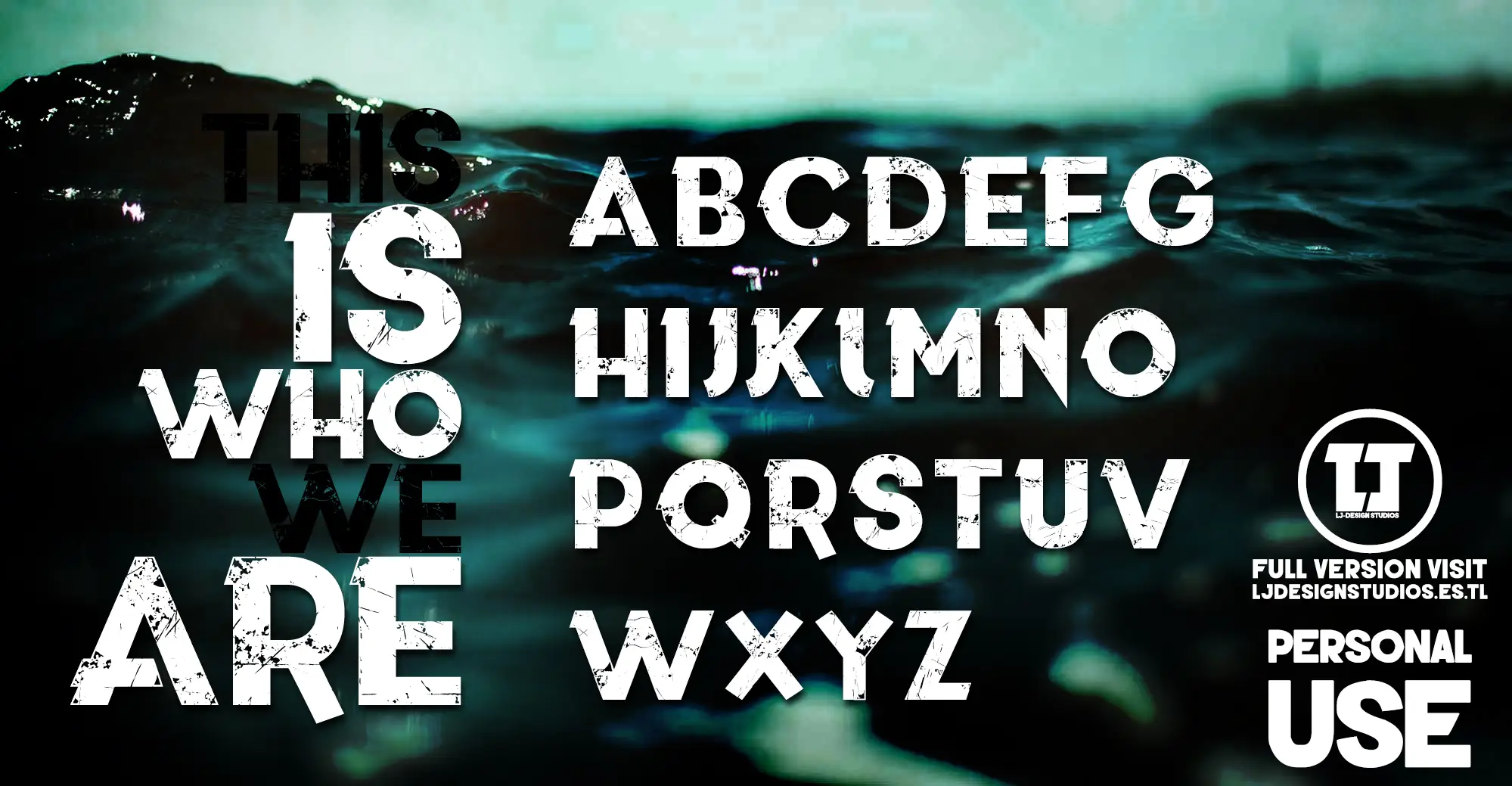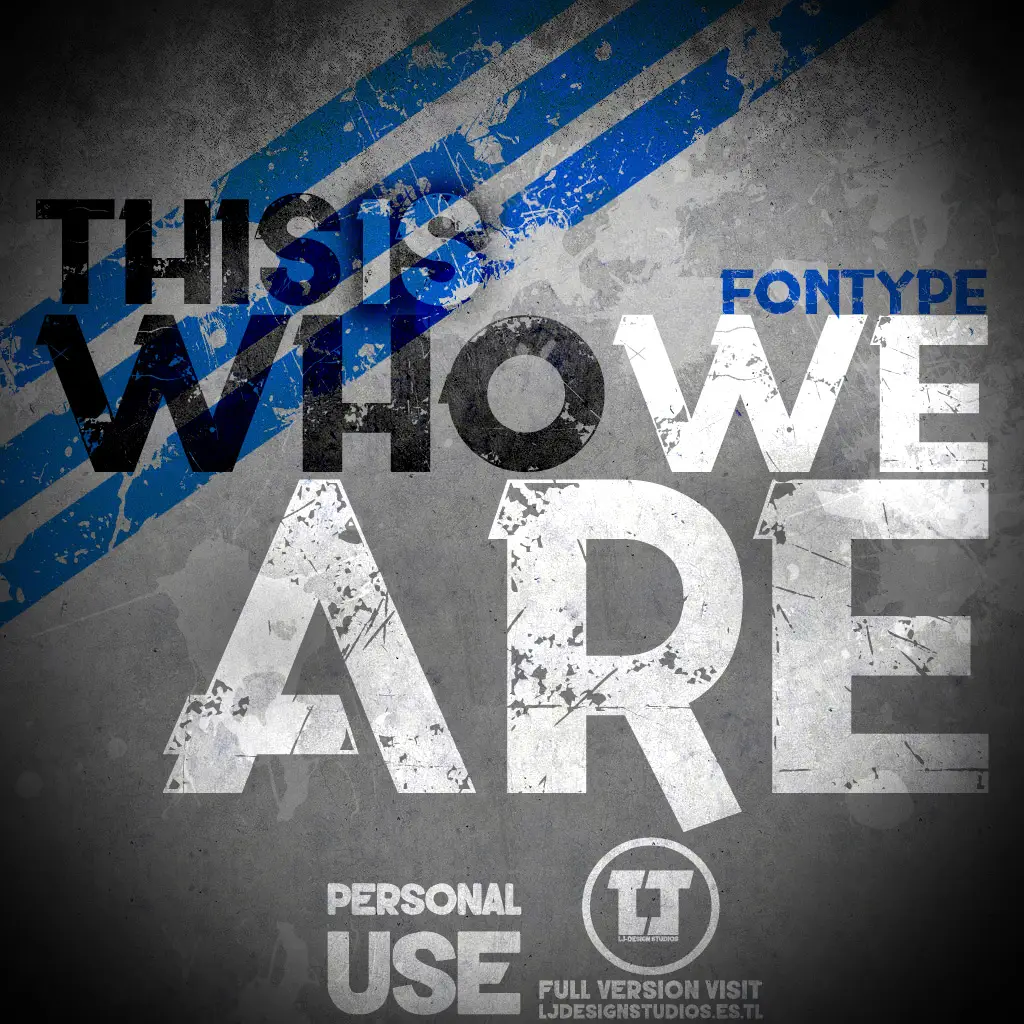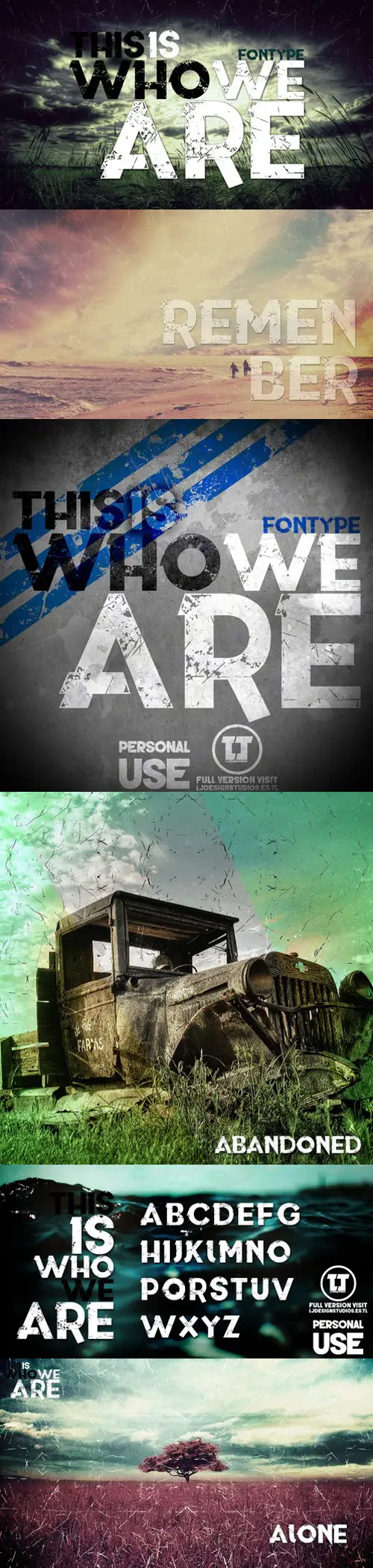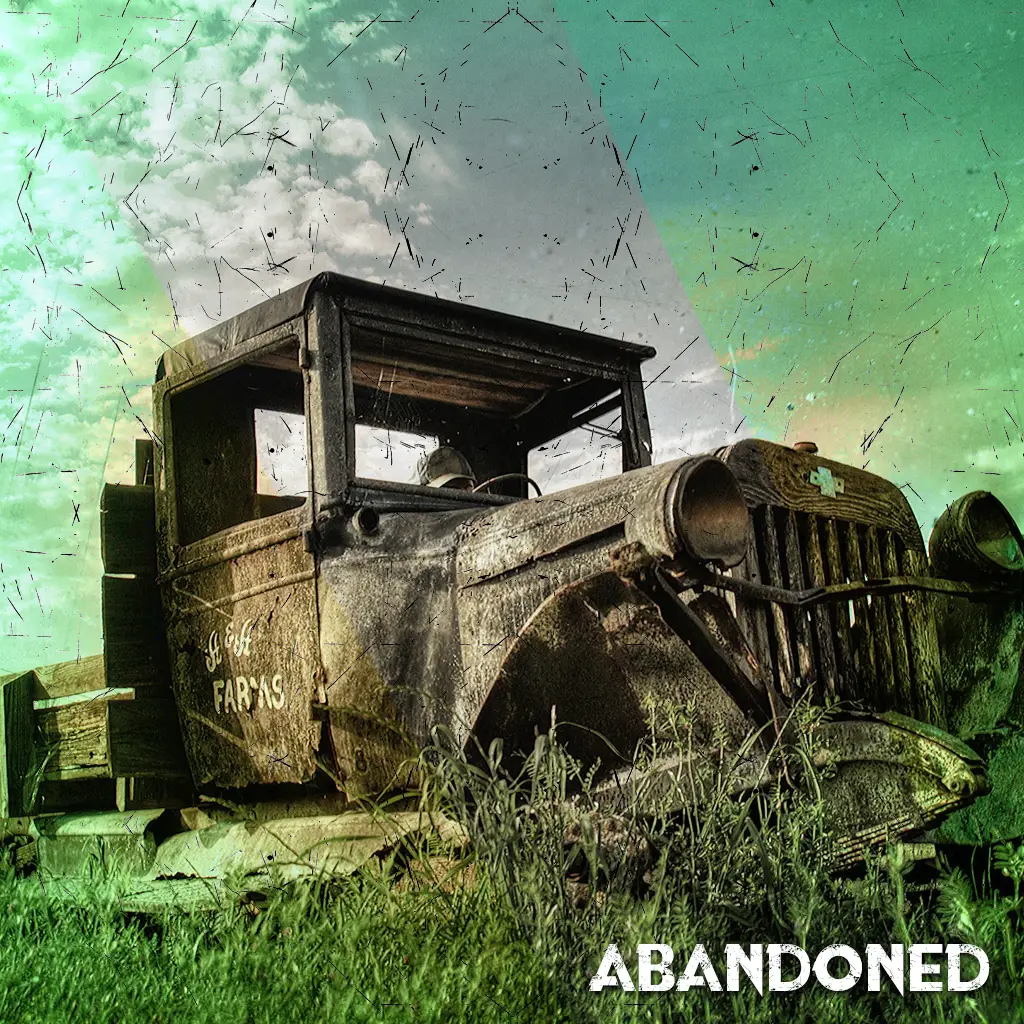
This Is Who We Are Font is a beautifully crafted typeface that embodies a modern yet timeless aesthetic. With its clean lines and elegant curves, this font is perfect for a variety of design projects.
- Uppercase and lowercase letters
- Numerals and punctuation included
- Style: Sans-serif
Ideal for branding, logos, web design, and print materials, This Is Who We Are Font adds a unique touch to any project.